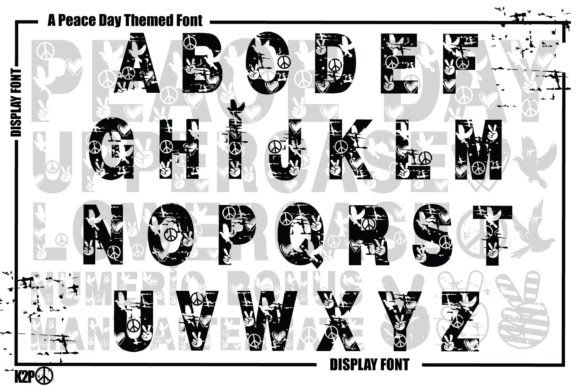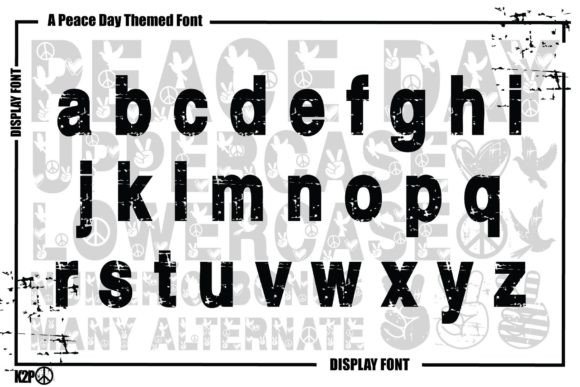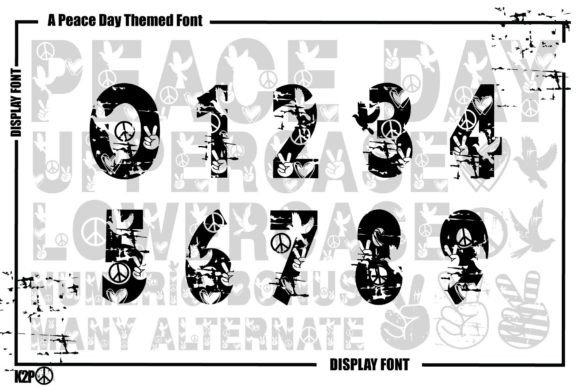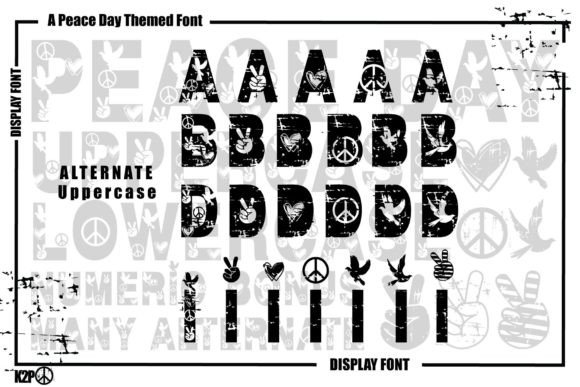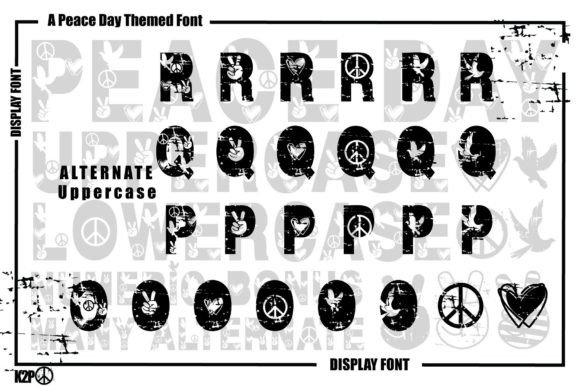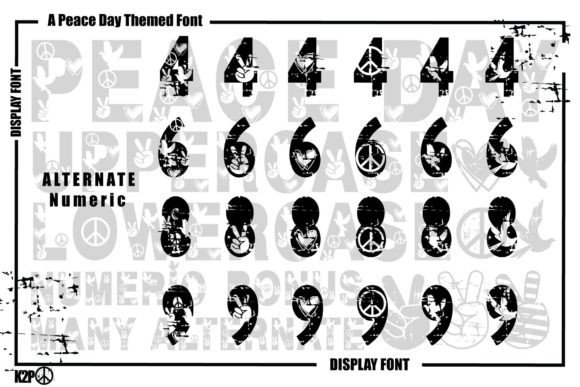
Grunge Peace Day Font: Add a Touch of Authenticity to Your Designs
Are you tired of using the same old fonts in your designs? Do you want to add a personal and realistic feel to your quotes, teaching materials, and other creative projects? Look no further than the Grunge Peace Day Font! This thick-lettered decorative font is perfect for designers and crafters who want to give their work a unique and authentic look.
What is Grunge Peace Day Font?
Grunge Peace Day Font is a decorative font that is inspired by the grunge movement of the 1990s. It features thick, bold letters with a distressed look that gives it a realistic and authentic feel. This font is perfect for use in a variety of design projects, including quotes, posters, flyers, and teaching materials.
Key Features of Grunge Peace Day Font
So, what makes Grunge Peace Day Font so special? Here are just a few of its key features:
• Thick-Lettered Design: The font features thick, bold letters that are perfect for creating eye-catching designs.
• Distressed Look: The font has a distressed look that gives it a realistic and authentic feel.
• PUA Encoded: The font is PUA encoded, which means that you can access all of the glyphs and swashes with ease.
• Decorative: The font is perfect for use in decorative designs, such as quotes, posters, and flyers.
Benefits of Using Grunge Peace Day Font
So, why should you use Grunge Peace Day Font in your designs? Here are just a few benefits:
• Adds a Personal Touch: The font’s authentic look adds a personal touch to your designs, making them stand out from the crowd.
• Perfect for Quotes and Teaching Materials: The font is perfect for use in quotes and teaching materials, adding a touch of realism and authenticity.
• Ease of Use: The font is easy to use, thanks to its PUA encoding, which makes it simple to access all of the glyphs and swashes.
• Unique Look: The font’s unique look will give your designs a distinctive style that sets them apart from others.
Who Can Benefit from Grunge Peace Day Font?
Grunge Peace Day Font is perfect for a variety of designers and crafters, including:
• Graphic Designers: Graphic designers can use the font in a variety of design projects, including posters, flyers, and brochures.
• Crafters: Crafters can use the font in their craft projects, such as making signs, banners, and other decorative items.
• Teachers: Teachers can use the font in their teaching materials, such as worksheets, handouts, and presentations.
• Social Media Influencers: Social media influencers can use the font in their social media graphics, adding a touch of authenticity and realism to their posts.
In conclusion, Grunge Peace Day Font is a unique and versatile font that is perfect for designers and crafters who want to add a personal and realistic feel to their designs. With its thick-lettered design, distressed look, and PUA encoding, this font is perfect for use in a variety of design projects. Whether you’re a graphic designer, crafter, teacher, or social media influencer, Grunge Peace Day Font is a great addition to your font collection.